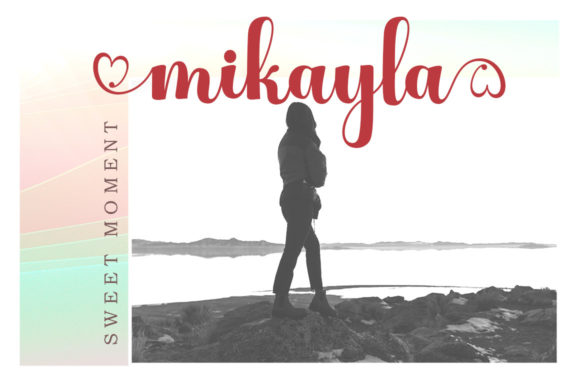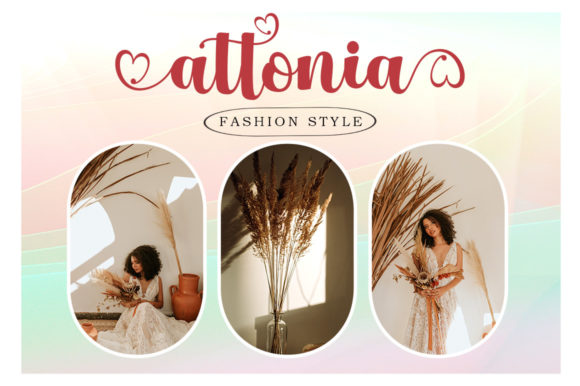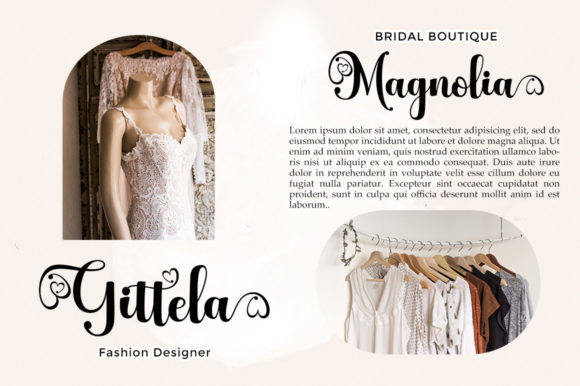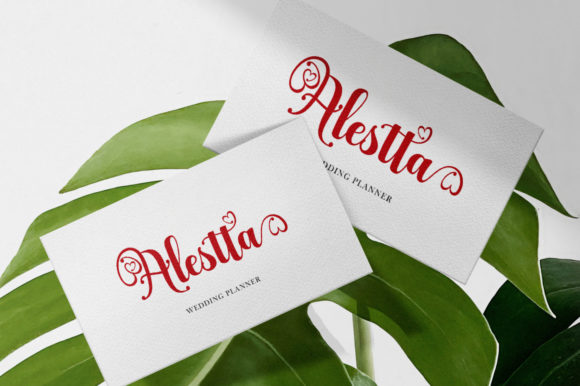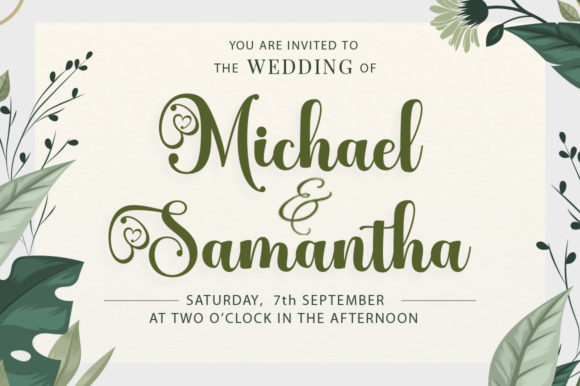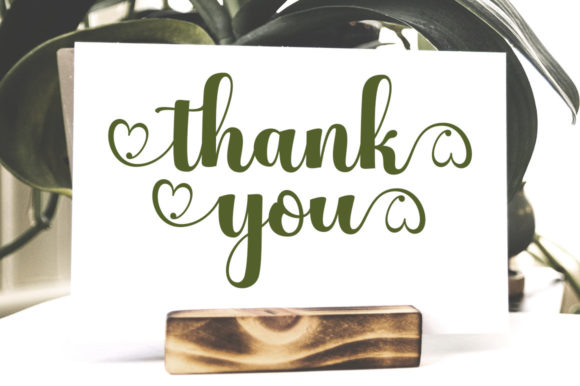
Better Spring Font
About Better Spring Font
“Better Spring” is a beautifully balanced and subtly crafted handwritten font. It is meticulously designed to achieve optimal results. This font will infuse an element of elegance and sophistication into any of your design projects. The font is PUA encoded, which means you can effortlessly access all of the glyphs and swashes. This feature enhances the usability of the font, making it a versatile choice for various design needs. Whether you’re working on a logo, poster, or web design, “Better Spring” can elevate your work to new heights. Its well-balanced nature ensures that it doesn’t overpower the design but complements it. The subtle strokes of the handwritten style add a personal touch, making your designs more relatable and engaging. The ease of accessing all glyphs and swashes means you have a wide array of design elements at your disposal. This can spark creativity and open up new possibilities in your design process. In conclusion, “Better Spring” is more than just a font. It’s a tool that can transform your designs, adding a unique touch of elegance and class. Its well-balanced nature, subtle handwritten style, and PUA encoding make it a must-have for any designer. So why wait? Start exploring the potential of “Better Spring” today and take your designs to the next level.